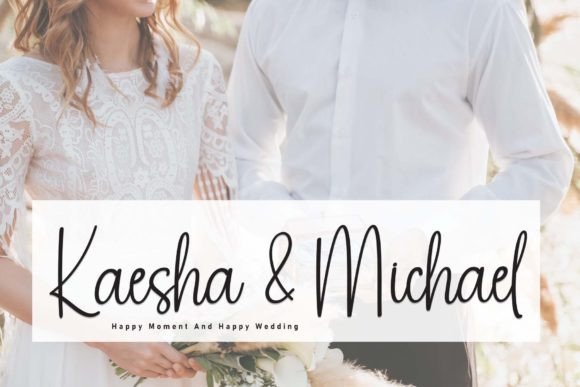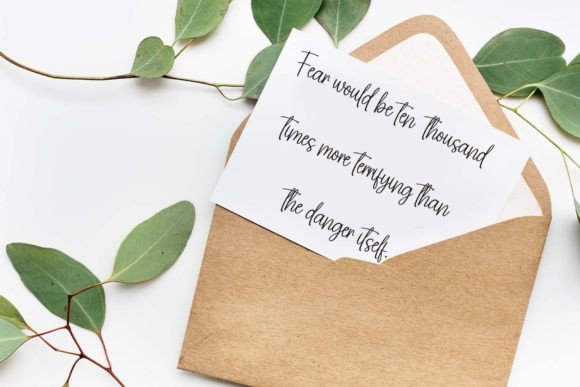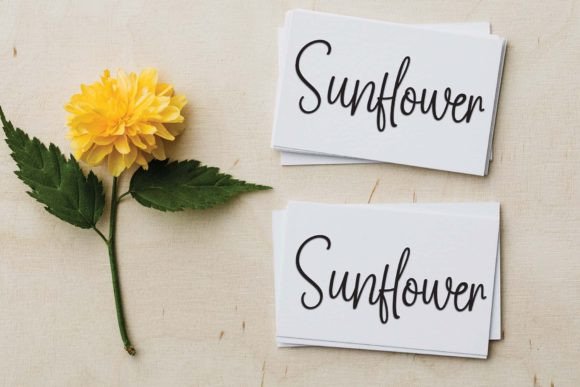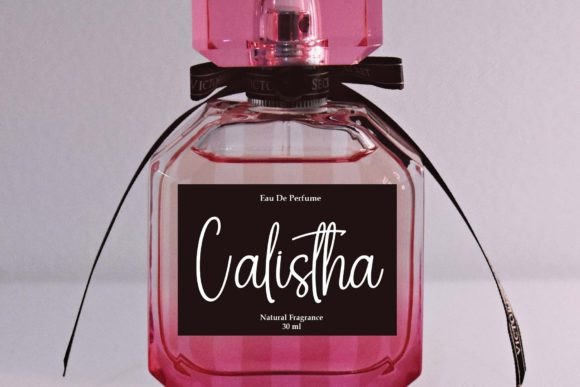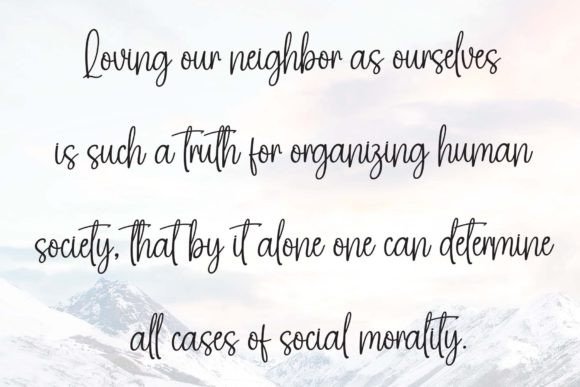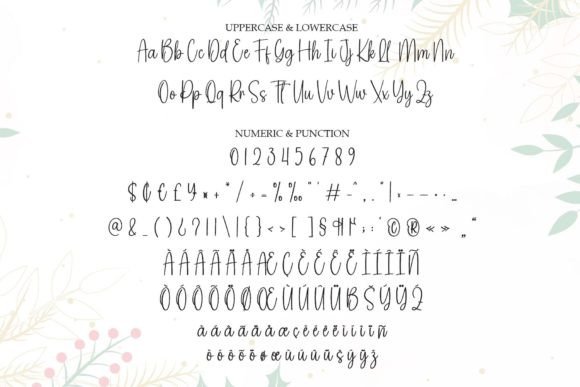
Deck the Halls with Holiday Cheer: Introducing the Christmas Signature Font
It’s that magical time of the year when creativity knows no bounds. You’re rummaging through your craft supplies, searching for the perfect font to add a touch of elegance to your holiday cards, gift tags, or social media posts. As you scroll through your font collection, you stumble upon a hidden gem – a script font that exudes the essence of Christmas magic.
This is where the Christmas Signature Font comes into play, carefully crafted to transport your designs to a world of festive wonder. Whether you’re a seasoned designer or a DIY enthusiast, this font is the perfect companion for your holiday projects. Its versatility and sophistication make it a valuable asset for any designer looking to elevate their creations.
Key Features of Christmas Signature Font
- Unique Characteristics: The font features festive and whimsical designs, including ornaments, holly, and snowflakes, making it perfect for holiday-themed designs and signatures
Designer Review: Christmas Signature Font
Overall, I think Christmas Signature Font is a charming addition to any holiday design project. ✨ The font’s playful, handwritten style is perfect for creating festive invitations, gift tags, and social media graphics. The font’s unique texture and imperfections add a touch of warmth and personality, making it feel like a handwritten note from a loved one.
The font includes a variety of characters, including uppercase and lowercase letters, numbers, and punctuation marks. ✨ It’s also highly customizable, allowing you to adjust the font size, color, and style to suit your design needs.
While Christmas Signature Font is a great addition to any holiday design project, there are a few limitations to consider. ⚠️ The font is not suitable for body text, as it can be difficult to read in larger quantities. Additionally, the font’s texture and imperfections may not be suitable for designs that require a more polished or modern look.
- Best used for titles, headings, and short text passages.
- May not be suitable for body text or designs that require a more modern look.
- Highly customizable, but may require some experimentation to achieve the desired look.
Experiment with different font combinations to create a unique look.
Use the font in conjunction with festive graphics and colors to enhance the holiday theme.
Christmas cards and invitations.
Holiday social media graphics.
Gift tags and wrapping paper designs.